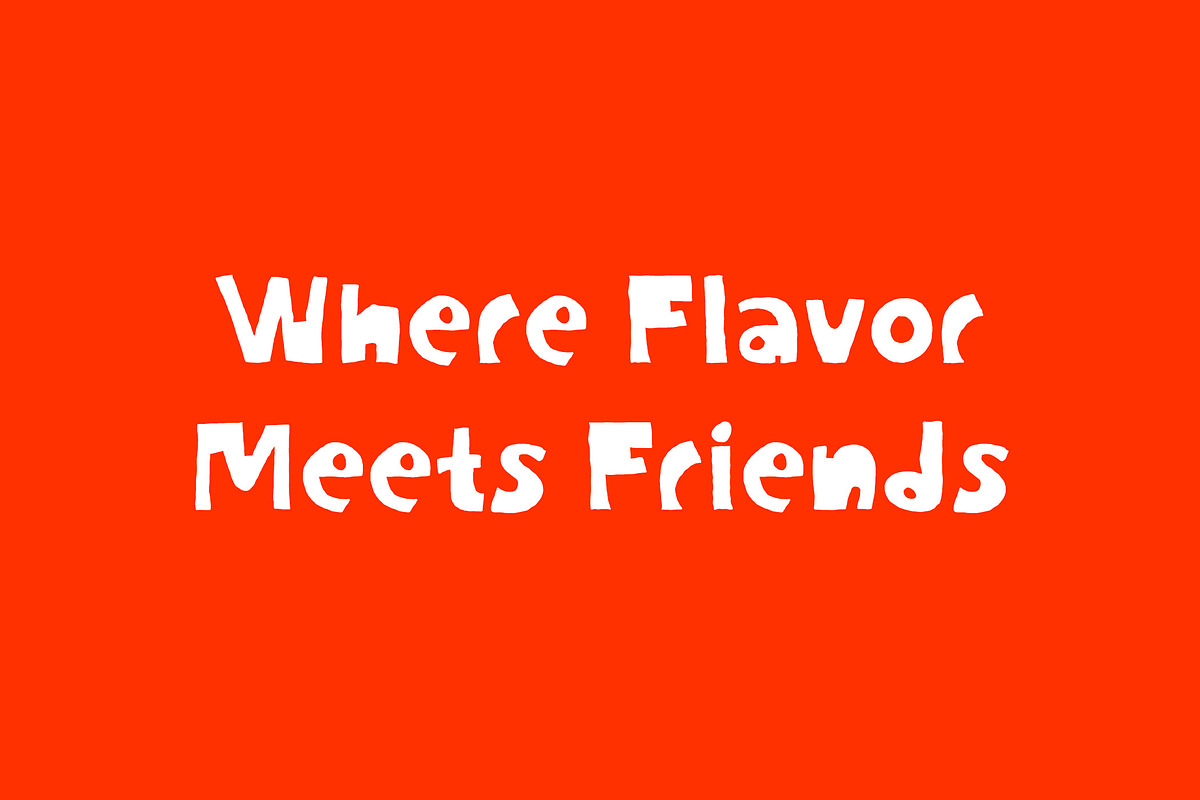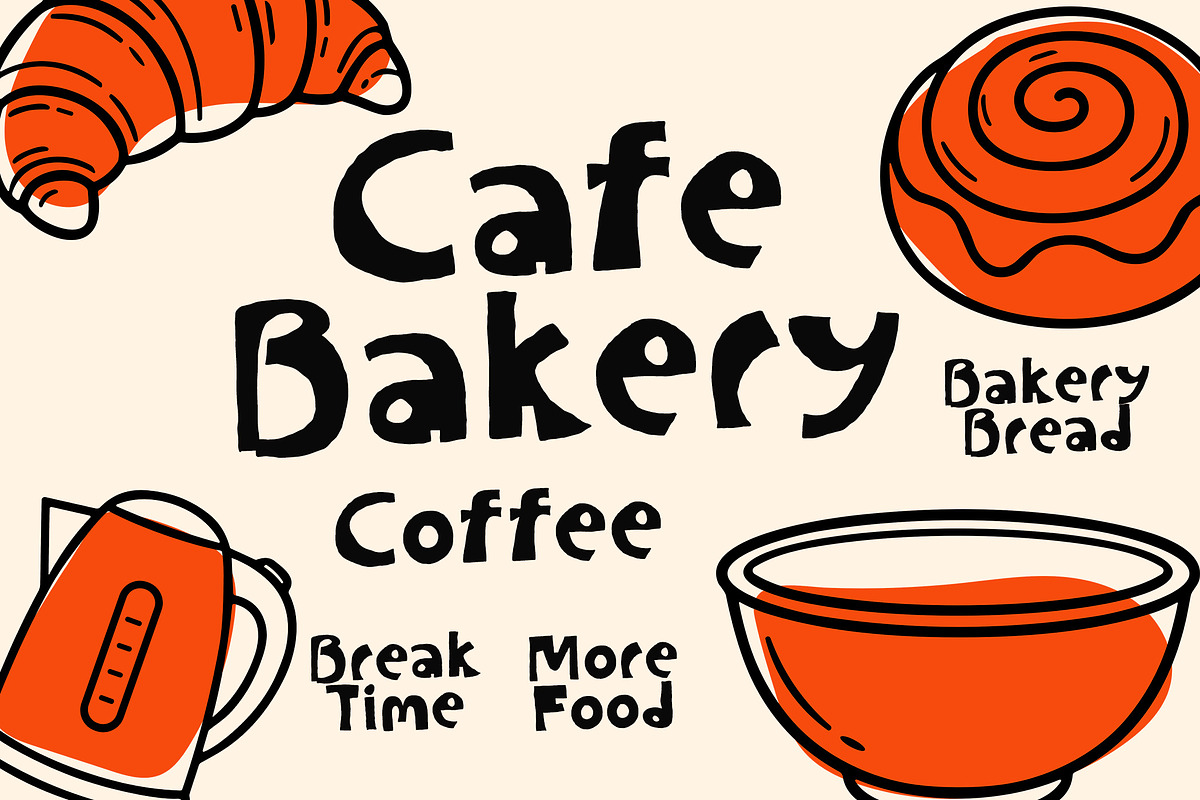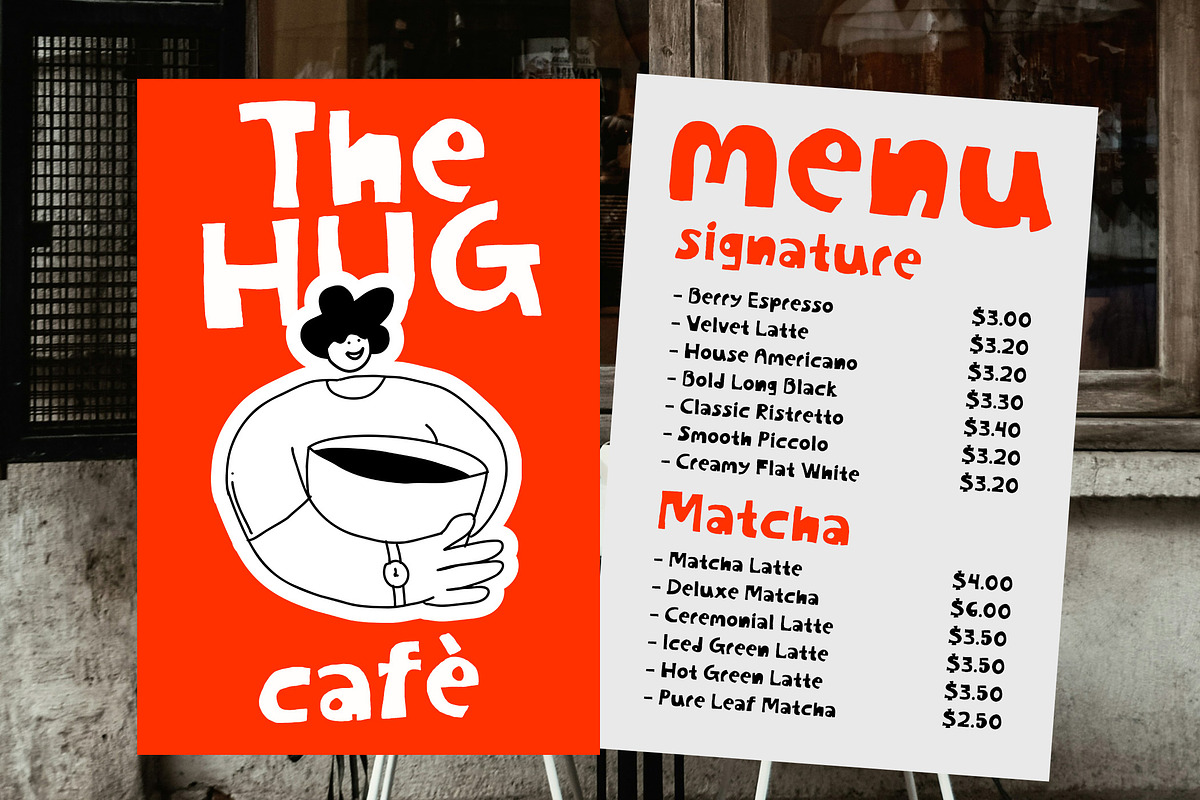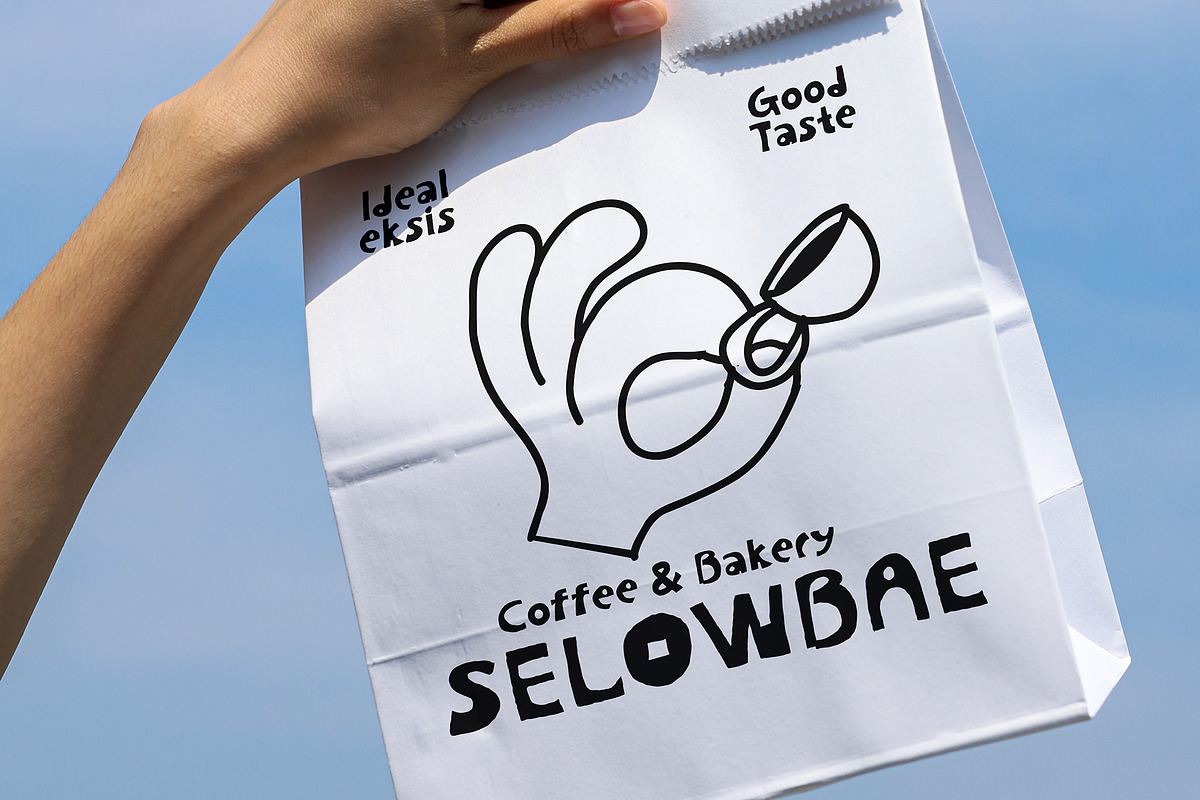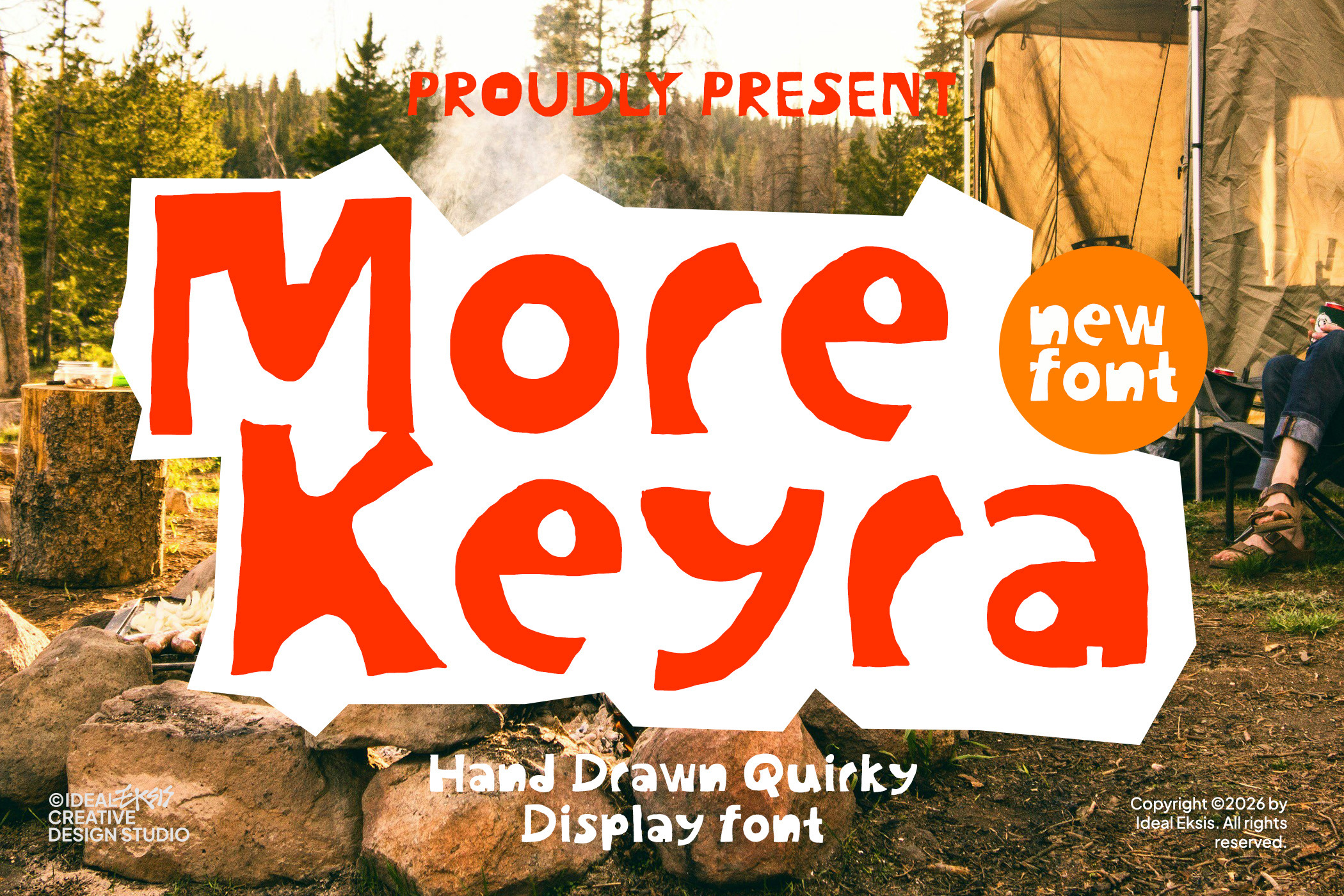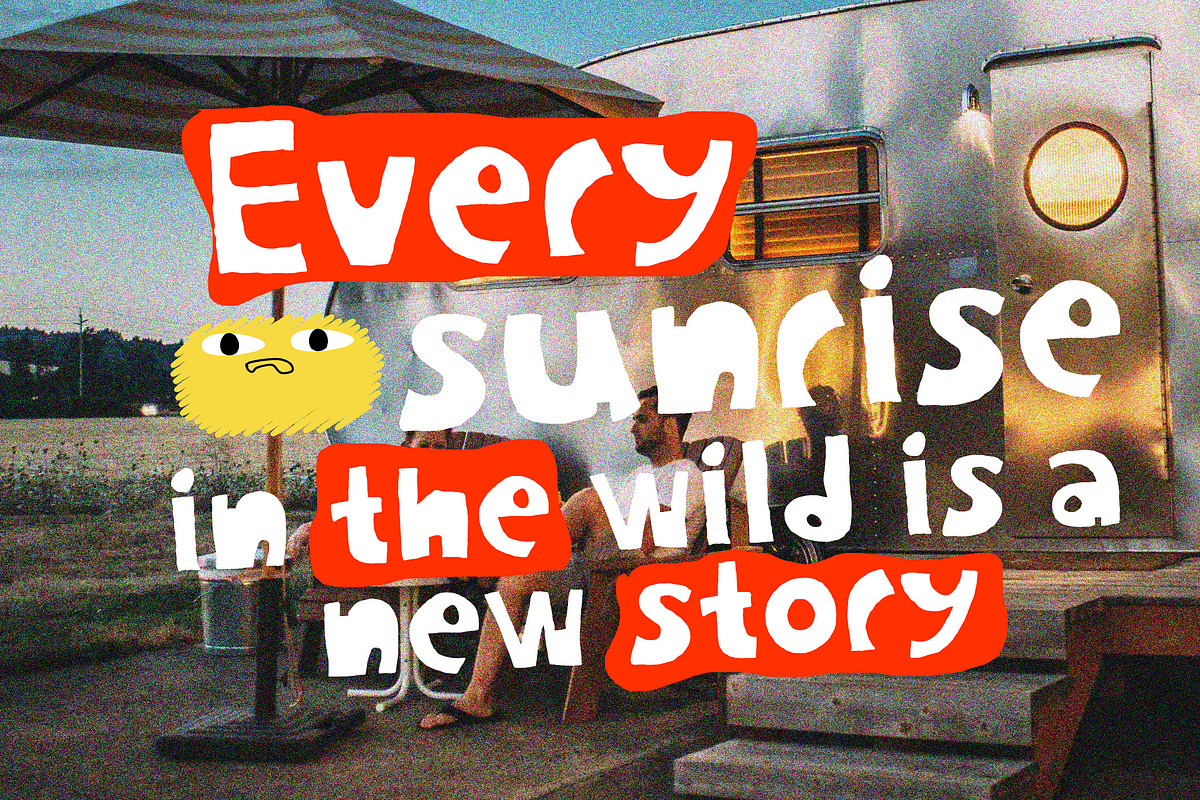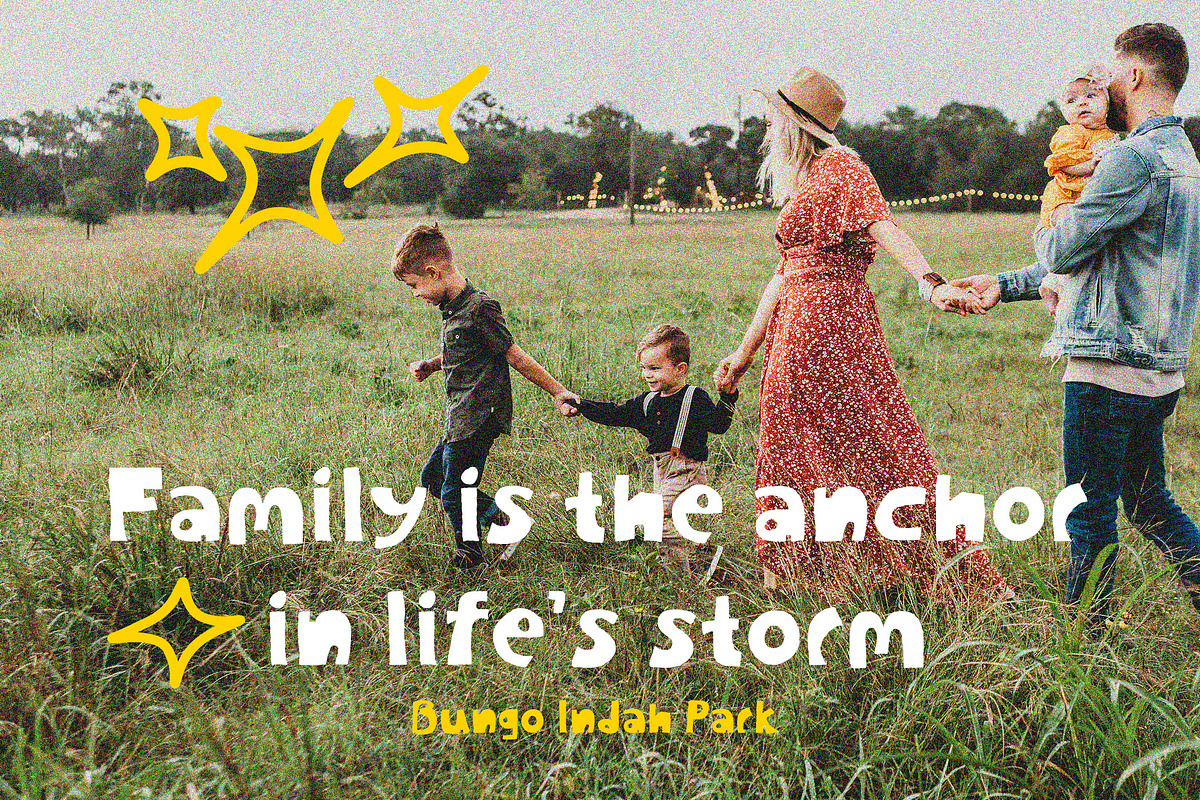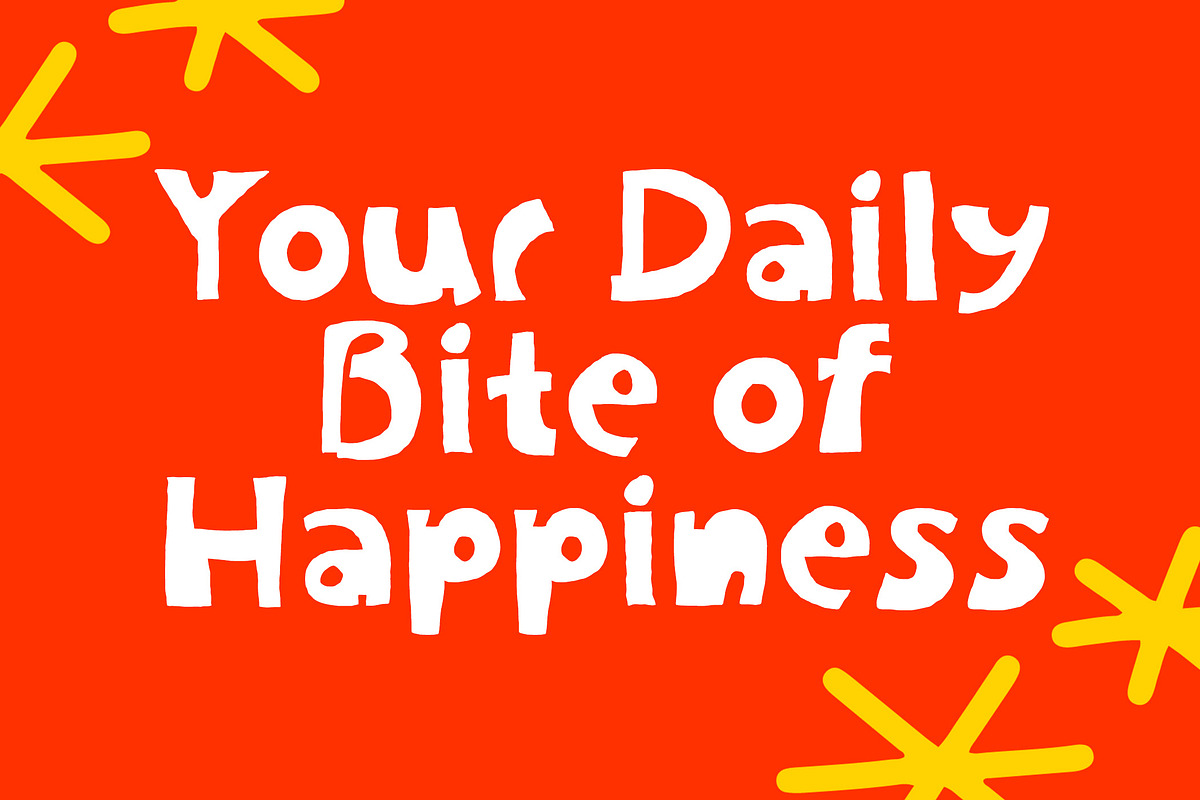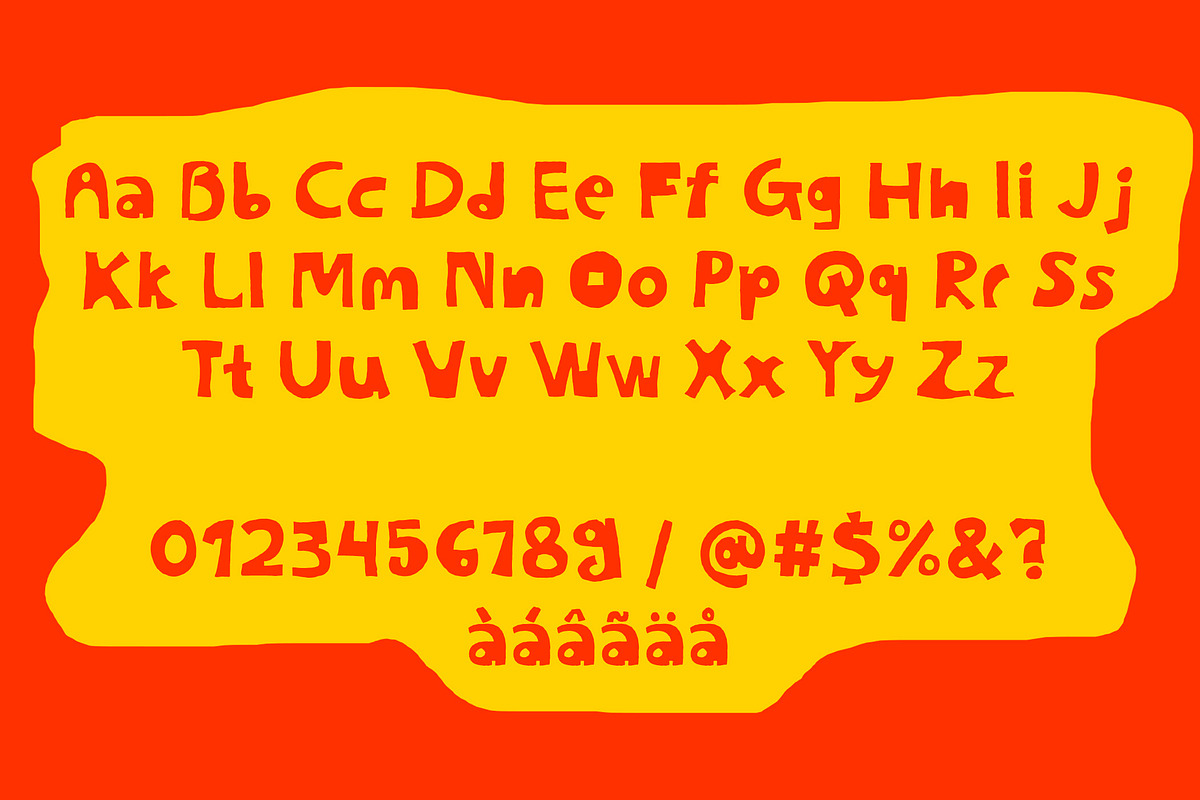
More Keyra - Handmade Display Font
This font features bold, hand-drawn letterforms with a highly irregular and organic structure, reminiscent of paper cutout art. Its uneven stroke widths, quirky angles, and chunky weight give it a playful, rustic, and adventurous character. The lack of clean lines and traditional alignment emphasizes its handmade, casual aesthetic, making it perfect for expressive headlines, outdoor branding, and creative posters.
+ Uppercase
+ Lowercase
+ Multilingaul Support
+ Numerals
+ Punctuation